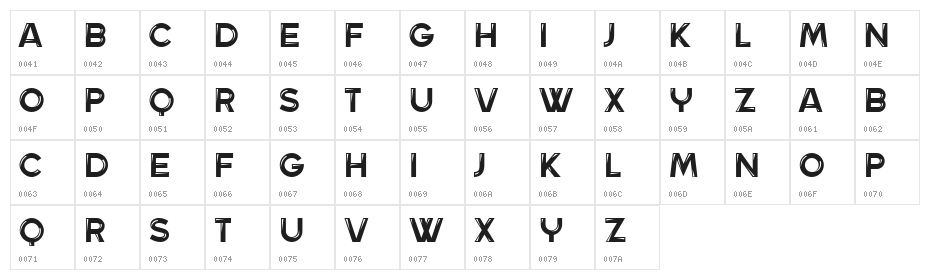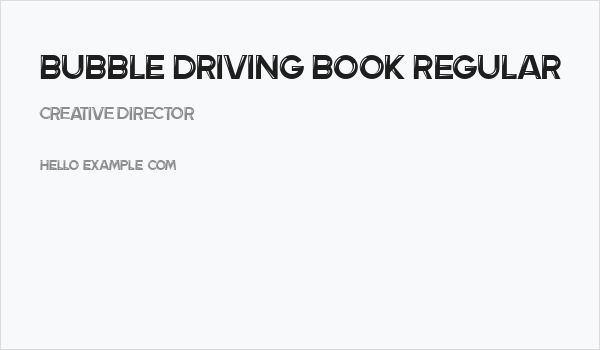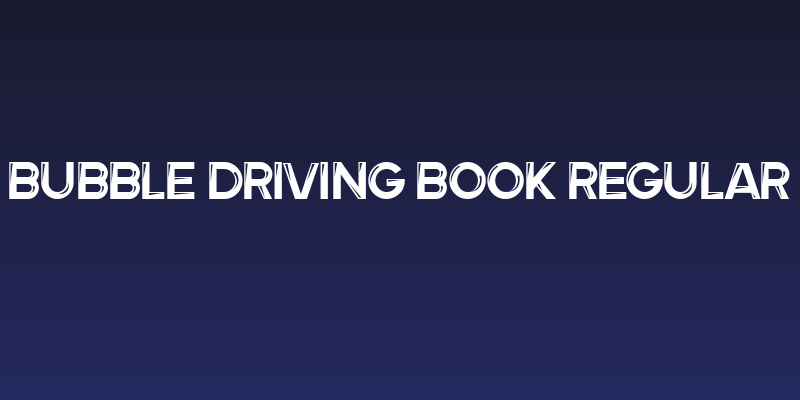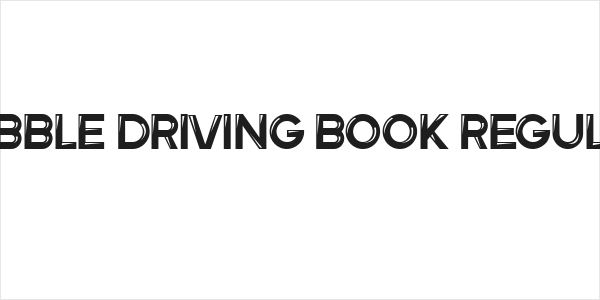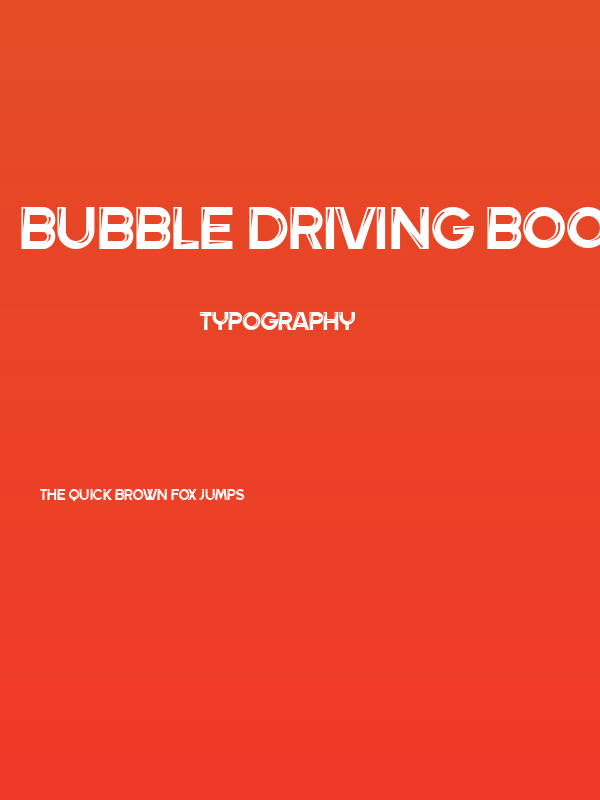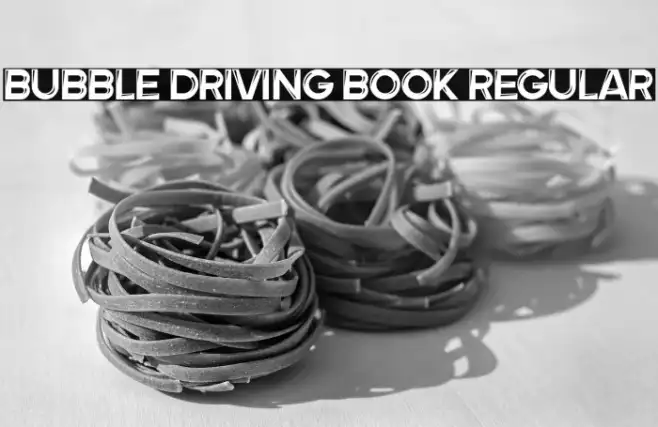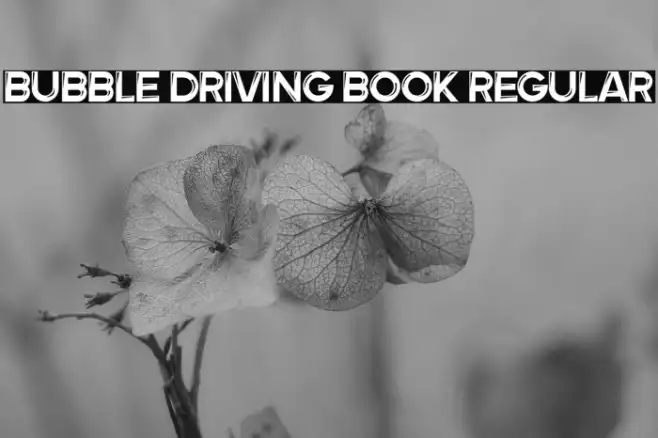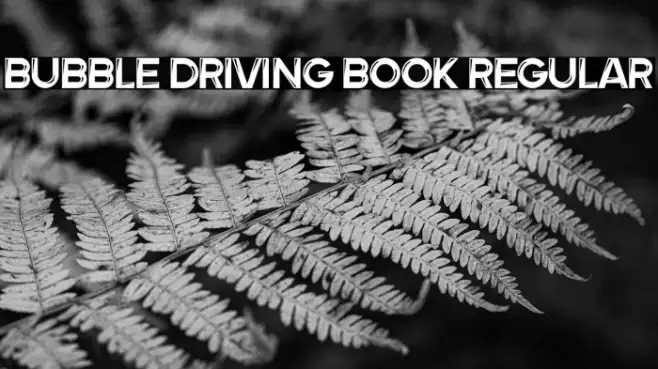
Bubble Driving Book Regular Font
Bubble Driving Book Regular Description
This font features a bold and dynamic style with a playful, bubble-like appearance. The letters are characterized by thick strokes and a three-dimensional effect, giving them a sense of depth and movement. The uppercase letters are particularly striking, with a unique design that combines both rounded and angular elements. The overall look is modern and eye-catching, making it suitable for creative and energetic projects. The font's distinct personality is perfect for capturing attention and making a statement.
| Proposed Projects | Ideal for posters, logos, headlines, and any project requiring a bold, attention-grabbing typeface. |